In 2022, the types that will appear are cool and unique types, from Arabic scripts to bold retro look fonts. If you want to update your font collection for 2022 later, read this article to the end, maybe we will help you put together your collection.
Today the online market is becoming more and more crowded, many big brands are turning to identities that prioritize digital platforms. Therefore, there will be a shift in the font trend from unreadable fonts to more honest, legible, and inclusive fonts. Sans serif fonts will be great for UX and simple scripts will replace fussy serif styles.
1: Rounded Sans Serifs
Honest, open, and inclusive, this rounded sans serif reflects the shift towards fuss-free branding in 2022. The round font used to be a kid-focused product, but this more mature incarnation of the round type style strikes the perfect balance between friendly naivety. and geometric styles.
Ideal for use in a variety of branding projects, this font style is also very easy to read, increasing online accessibility for visually impaired readers. Use it to design logos, apps, brochures, and advertisements.
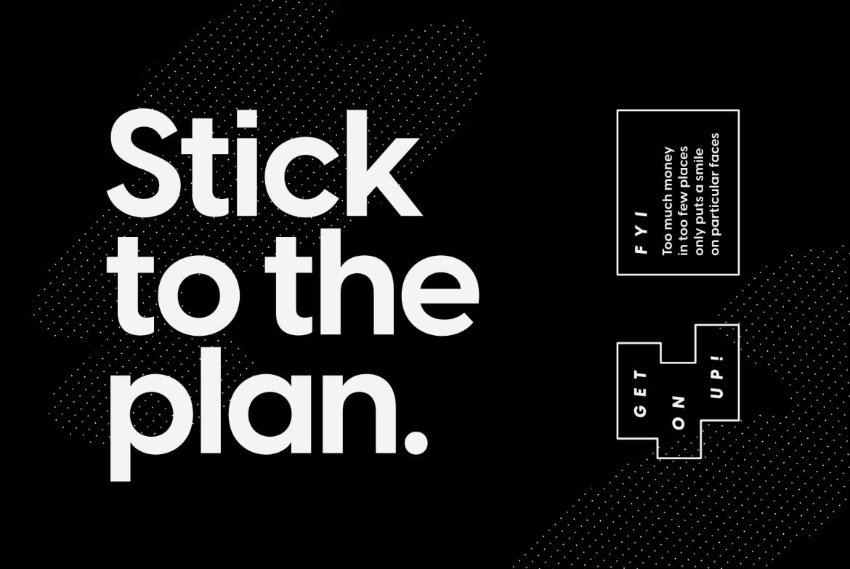
2: High-Contrast Serifs
Taking inspiration from Japanese typography, this ultra-elegant high-contrast serif typeface brings a literary personality to print and web projects.
This font balances traditional and contemporary styles, making logo and brand designs feel timeless and up-to-date, perfect for brands that want to look a little older than their founding date. High-contrast serifs also work well for body types on websites and are easier to read than older-style serifs.
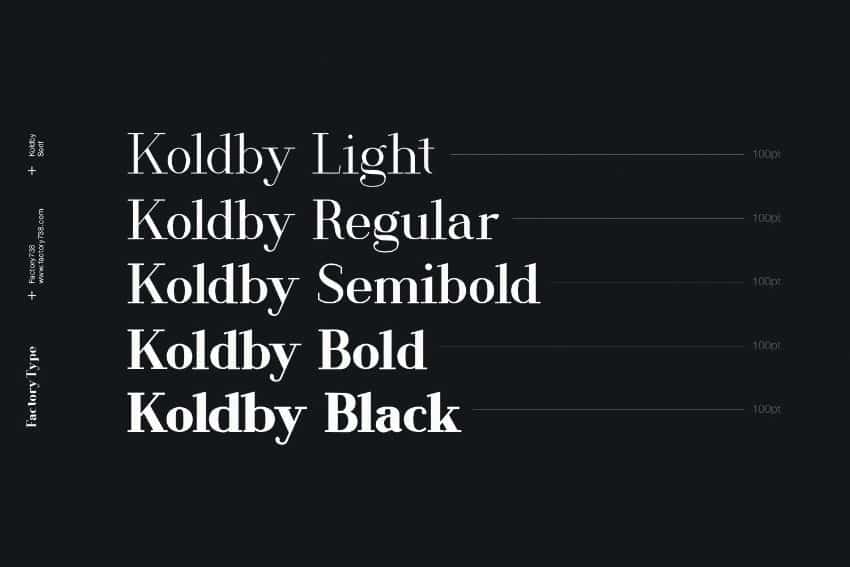
3: Quietly Quirky
This quirky, serene font style will help you channel a cozy vintage style into your designs in 2022. Look for traditional serifs with subtle quirks. If your character has a slightly hand-drawn wobble, you’re on the right track.
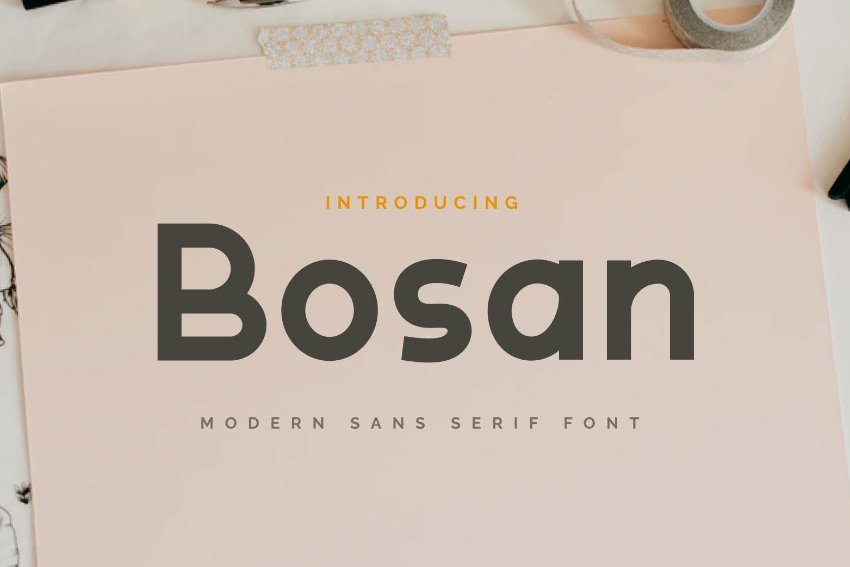
4: Fluid and Simple Script
The kind of trend that has developed over the course of 2021 is the use of very subtle and fluid script fonts that blend Art Nouveau elements with calligraphic styles.
In 2022, we will see this script become more fluid and simple, with a strong Arabic influence in its style. This display font can be used to embellish packaging, product photography, or websites, and it looks fantastic on top of photography. They are elegant and only slightly cursive, making them easier to read than the fancier script styles.
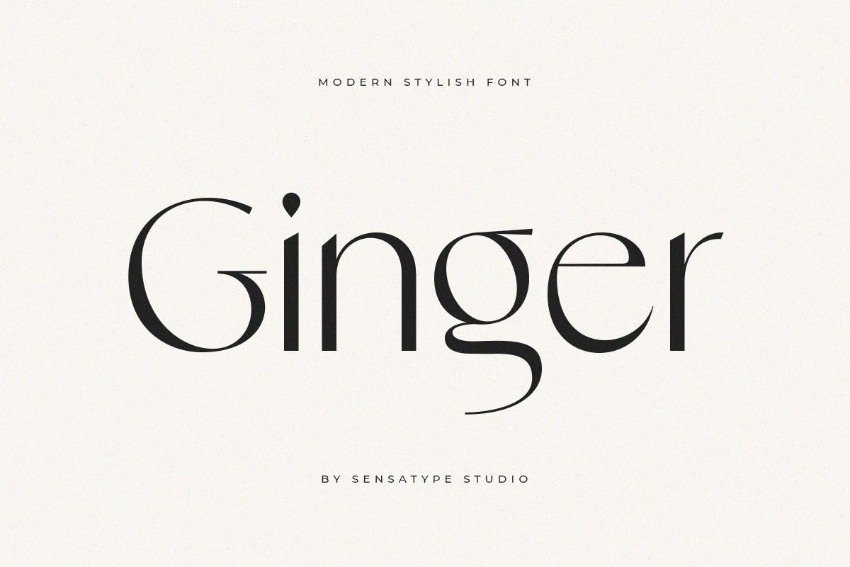
5: Rustic Serifs
One of the biggest font trends for 2020 is sculpted serif engraving that looks like it was carved out of stone. While we have now reached the sculptural saturation point, the serif trend is not going anywhere. If you like the sculptural serif look but are looking for something a little more on-trend, let me introduce you to rustic serifs.
Strikingly elegant with a few refined imperfections, this serif takes its cues from European cafe signage. Informal and effortlessly beautiful, they can be used to bring more character to print designs such as posters and book covers. They have a handwritten quality without looking hand-drawn, making them an excellent choice of font for communications that need to feel warm and personal, such as a portfolio website, resume, or casual event marketing.
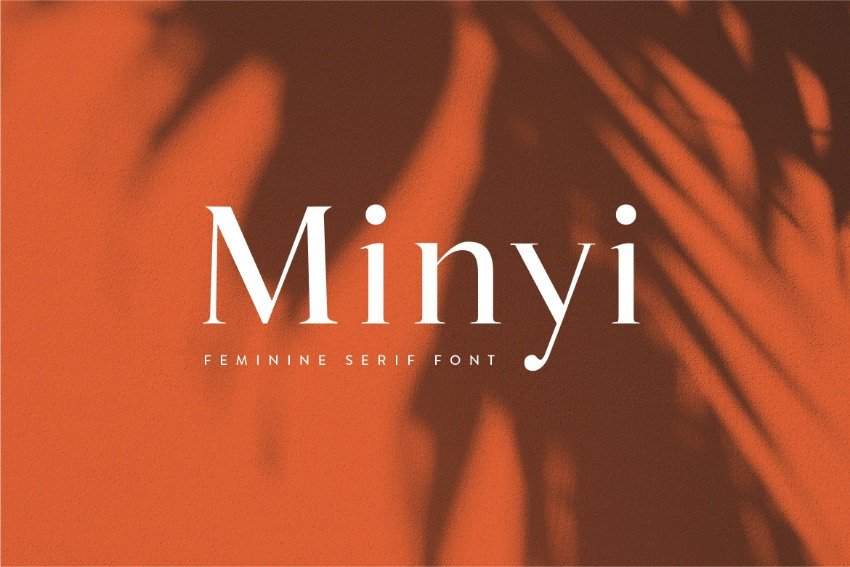
6: Strong and Simple Sans
After a year of distorted, new fonts, no breath of fresh air other than a strong and simple sans serif. This bold, impactful font works best for headlines and is perfect for corporate designs or layouts that need to get to the point quickly.
Pair your bold and simple serif with a high-contrast color pair like black and white or acid neon to maximize her strong personality. Sports branding, gaming marketing, tech branding, or a company website would all benefit from the modest impact of modern sans serif.
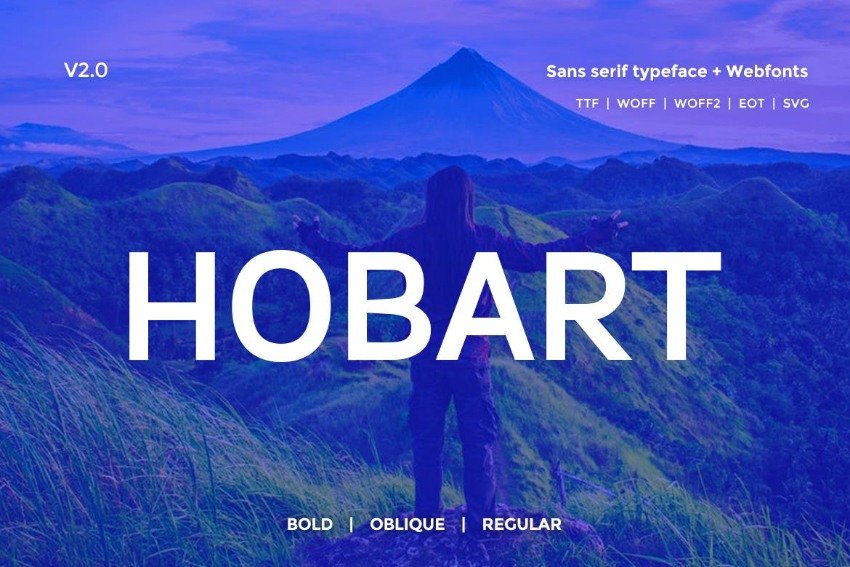
7: Chubby Retro
We predict that retro-inspired fonts will also be super-sized in 2022, with beefy retro fonts used to add a serious dose of fun and optimism to logos, packaging, signage, and websites. If you’re looking for trending fonts to make you smile in 2022, this chubby retro typography is sure to lift your mood.
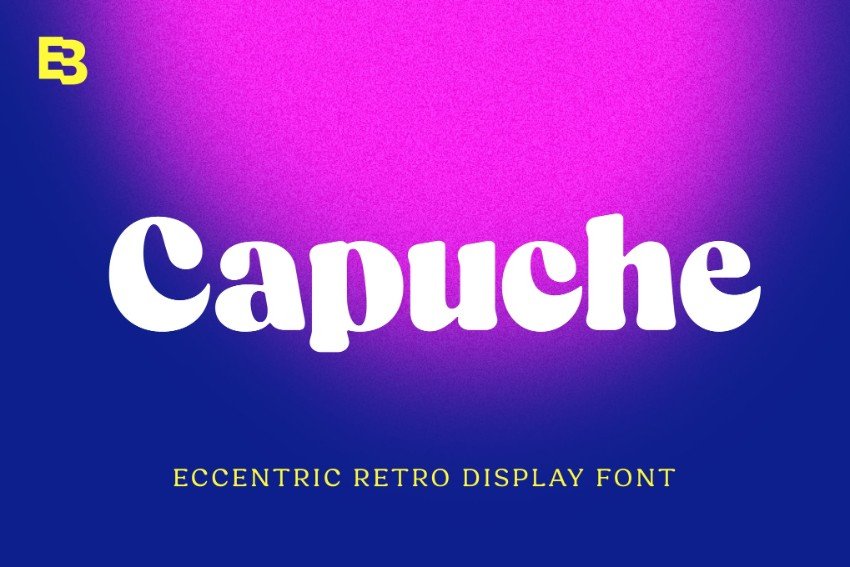
In 2022, the most popular fonts will bring a calmer mood but still have an impact of legibility, clarity, and an honest personality that will help consumers become more receptive to new brands that they may not even have encountered in the digital marketplace before.
That said, there are still plenty of types to choose from that will bring personality and character to your designs. Chubby retro fonts bring some much-needed optimism, while rustic serif fonts, simple scripts, and subdued quirky display fonts will bring warmth and friendliness to your projects, as well as serious style hits.